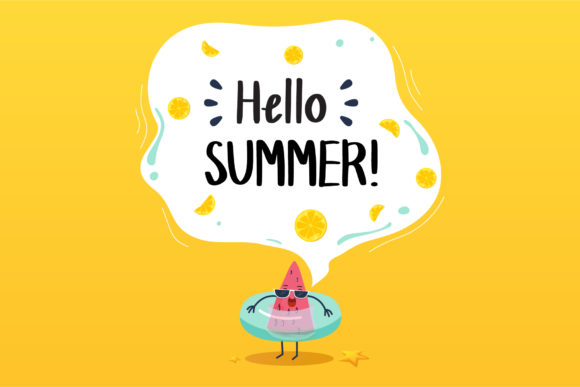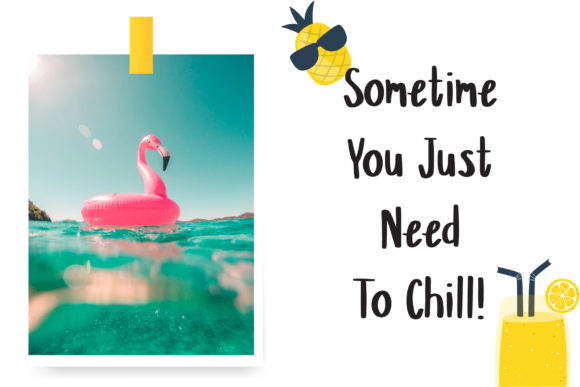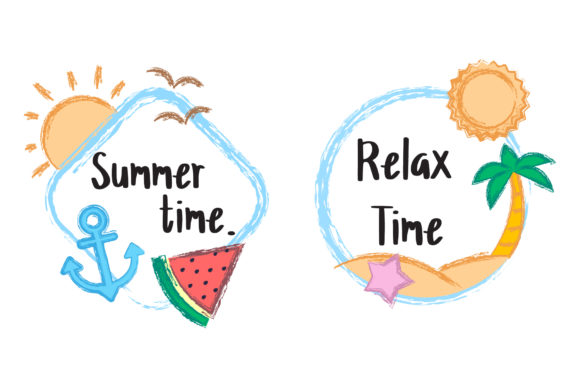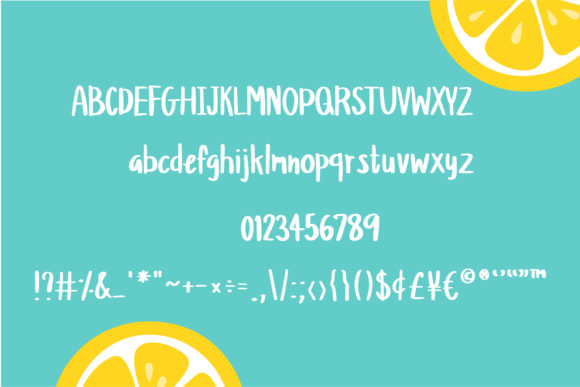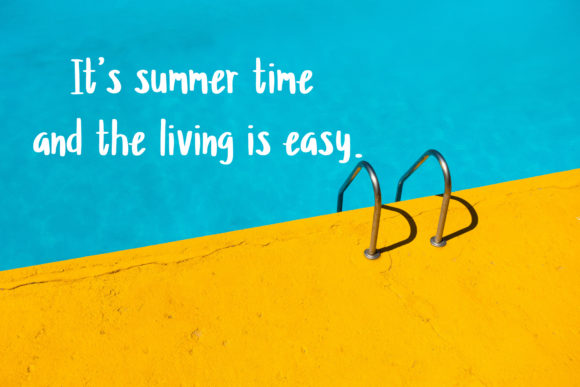
Hello Summer Font
About Hello Summer Font
Hello Summer is a cute handwritten font. Get inspired by it’s look and use it to brighten up all your crafting summer projects!